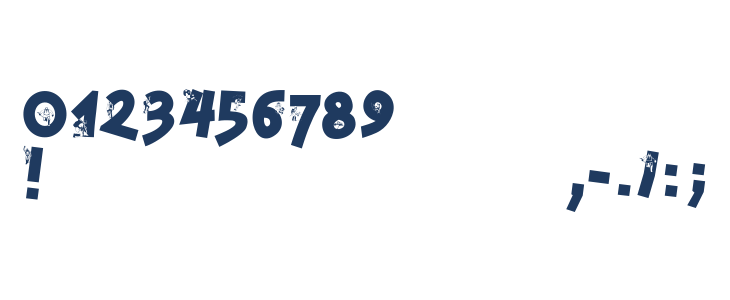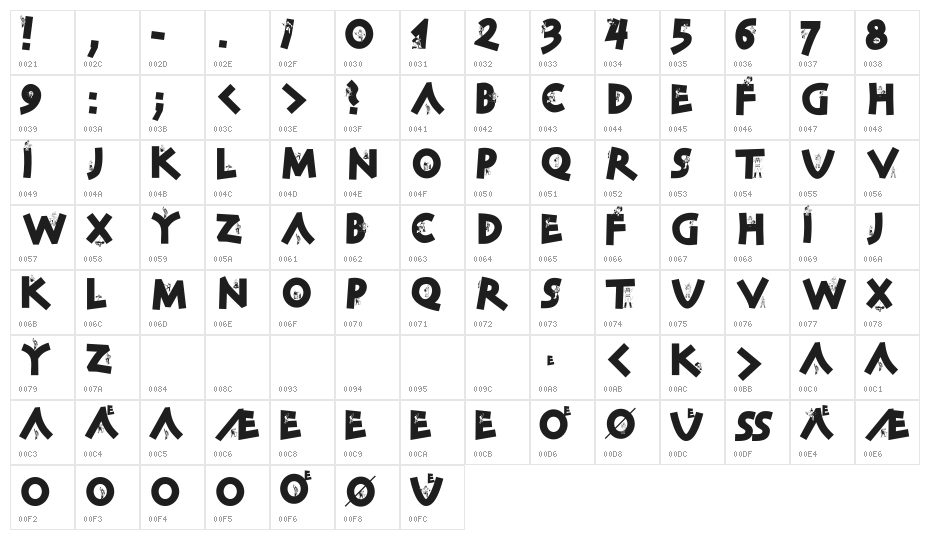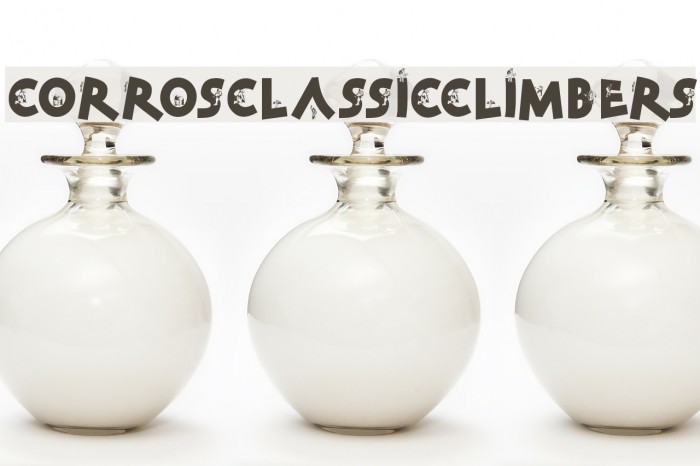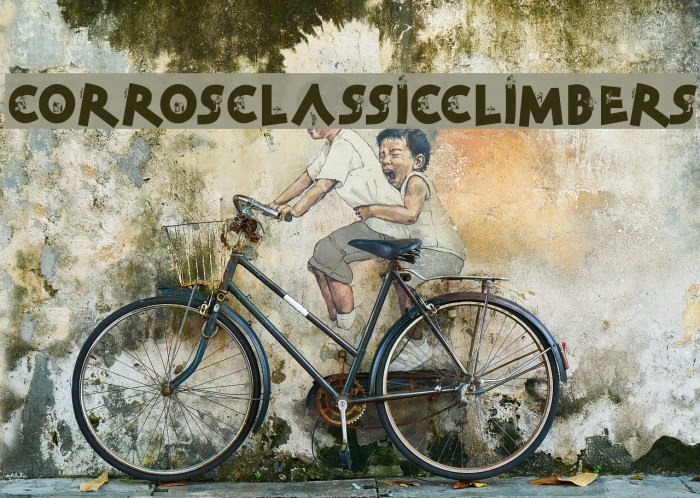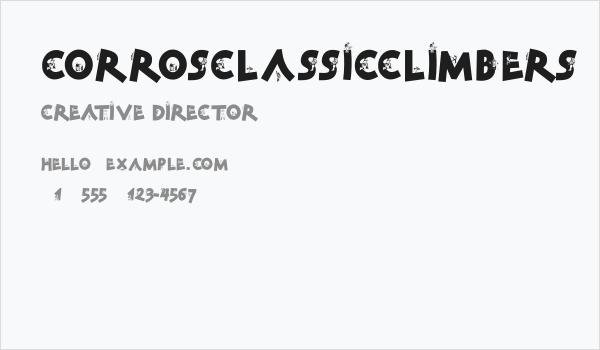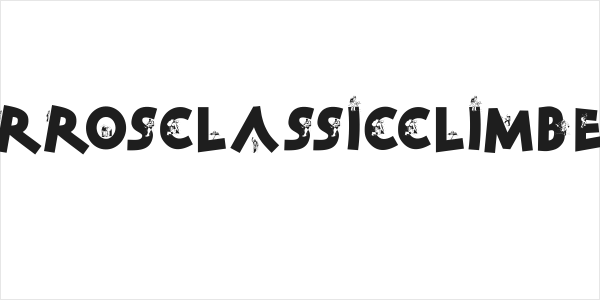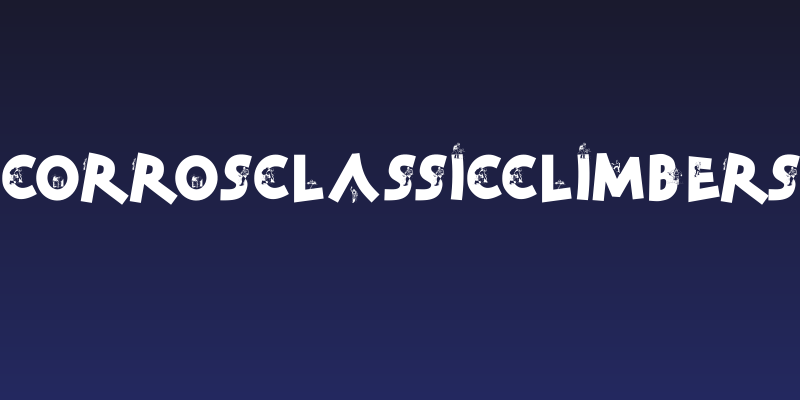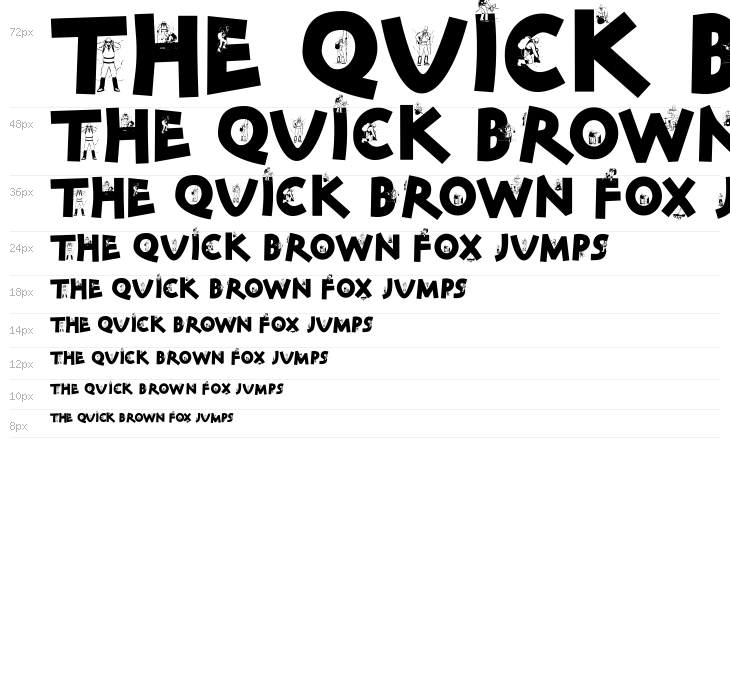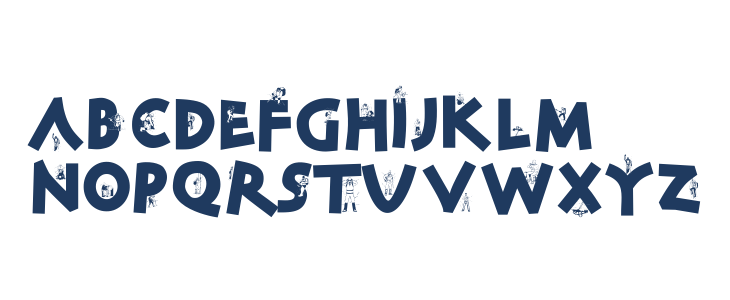
CorrosClassicClimbers Font
CorrosClassicClimbers Description
This font features a bold and playful design with a unique distressed texture that incorporates climbing figures within the letterforms. The characters are slightly tilted, adding a dynamic and energetic feel. The uppercase and lowercase letters maintain a consistent style, with exaggerated curves and angles that give the font a whimsical and adventurous appearance. The numbers and special characters follow the same design principles, ensuring a cohesive look across all elements. This font is perfect for projects that aim to convey excitement and creativity.